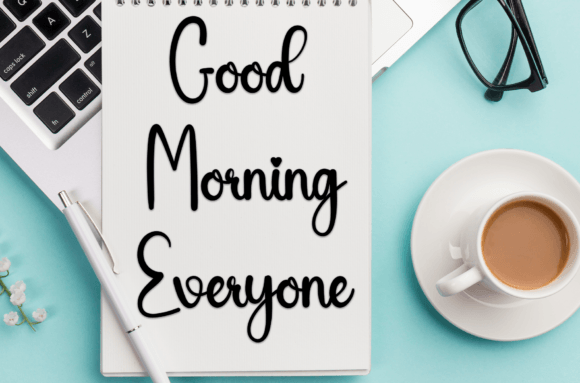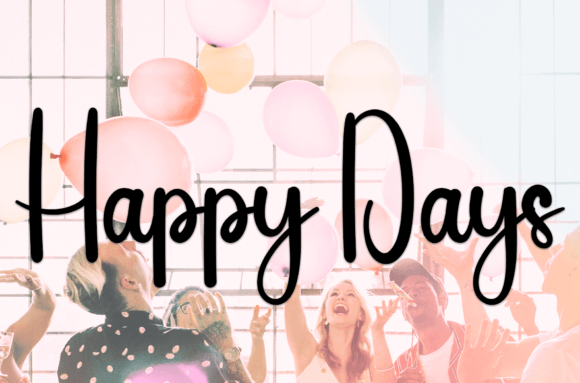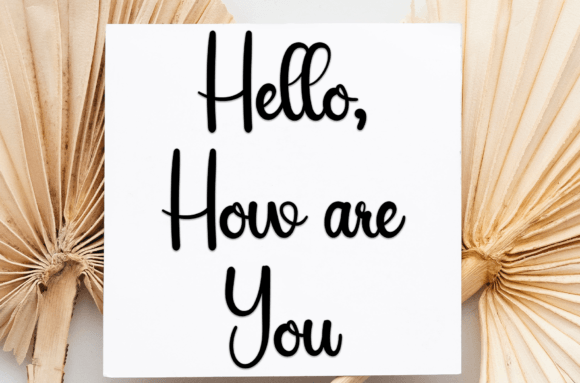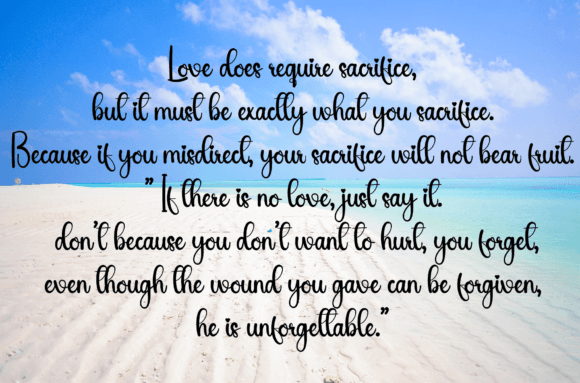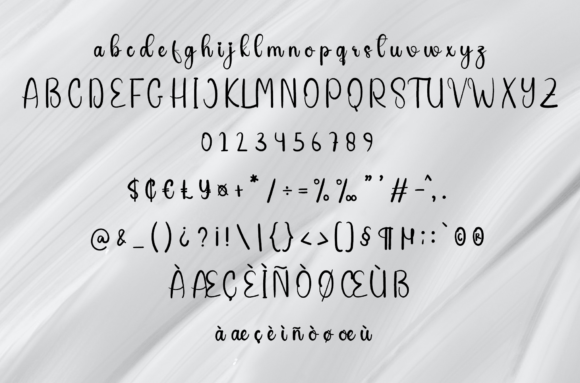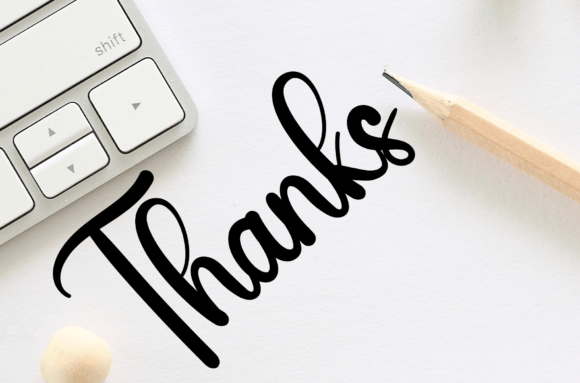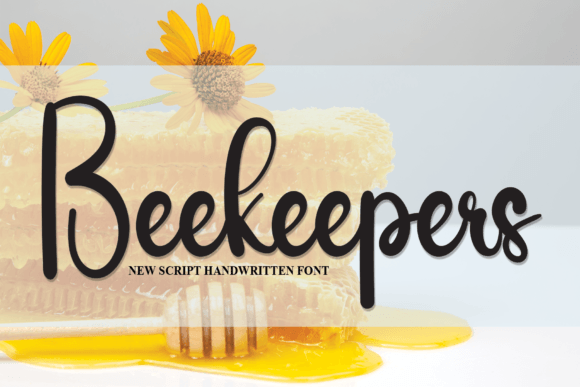
Introducing Beekeepers Font: The Sweet and Friendly Handwritten Font for Your Design Needs
Are you a designer or crafter looking for a font that can add a touch of whimsy and playfulness to your designs? Look no further than Beekeepers Font, a sweet and friendly handwritten font that’s perfect for creating unique and eye-catching designs. In this article, we’ll take a closer look at Beekeepers Font, its features, and how you can use it to elevate your designs.
What is Beekeepers Font?
Beekeepers Font is a beautiful, handwritten font that’s designed to bring a sense of warmth and friendliness to your designs. With its cute and relaxed vibe, this font is ideal for writing wedding invitations, cards, or any other design that might need a fun touch. Whether you’re a professional designer or a DIY crafter, Beekeepers Font is a great addition to your font collection.
Features of Beekeepers Font
So, what makes Beekeepers Font so special? Here are some of its key features:
- Handwritten style: Beekeepers Font has a beautiful, handwritten style that’s perfect for creating personal and unique designs.
- Cute and relaxed: This font has a playful and carefree vibe that’s ideal for designs that need a touch of whimsy.
- Versatile: Beekeepers Font can be used for a wide range of designs, from wedding invitations and cards to posters and social media graphics.
- Easy to read: Despite its playful style, Beekeepers Font is easy to read, making it perfect for designs that need to convey a message.
How to Use Beekeepers Font
Now that we’ve covered the features of Beekeepers Font, let’s talk about how you can use it in your designs. Here are some ideas to get you started:
- Wedding invitations: Beekeepers Font is perfect for creating beautiful and unique wedding invitations that will set the tone for the big day.
- Greeting cards: This font is ideal for creating cute and playful greeting cards for birthdays, holidays, and other special occasions.
- Social media graphics: Beekeepers Font can add a touch of personality to your social media graphics, making them stand out from the crowd.
- Posters and flyers: This font is perfect for creating eye-catching posters and flyers that need to grab attention.
Why Choose Beekeepers Font?
So, why should you choose Beekeepers Font for your design needs? Here are some reasons:
- Unique and creative: Beekeepers Font is a unique and creative font that will add a touch of personality to your designs.
- High-quality: This font is high-quality and designed to work perfectly on a wide range of devices.
Tips for Using Beekeepers Font
Here are some tips for using Beekeepers Font in your designs:
- Use it with contrasting colors: Beekeepers Font looks great when paired with contrasting colors that make it stand out.
- Experiment with different sizes: This font can be used at a variety of sizes, from large headings to small body text.
- Pair it with other fonts: Beekeepers Font can be paired with other fonts to create a unique and interesting design.
In conclusion, Beekeepers Font is a sweet and friendly handwritten font that’s perfect for designers and crafters who want to add a touch of whimsy to their designs. With its cute and relaxed vibe, this font is ideal for writing wedding invitations, cards, or any other design that might need a fun touch. So why not give Beekeepers Font a try and see how it can elevate your designs?